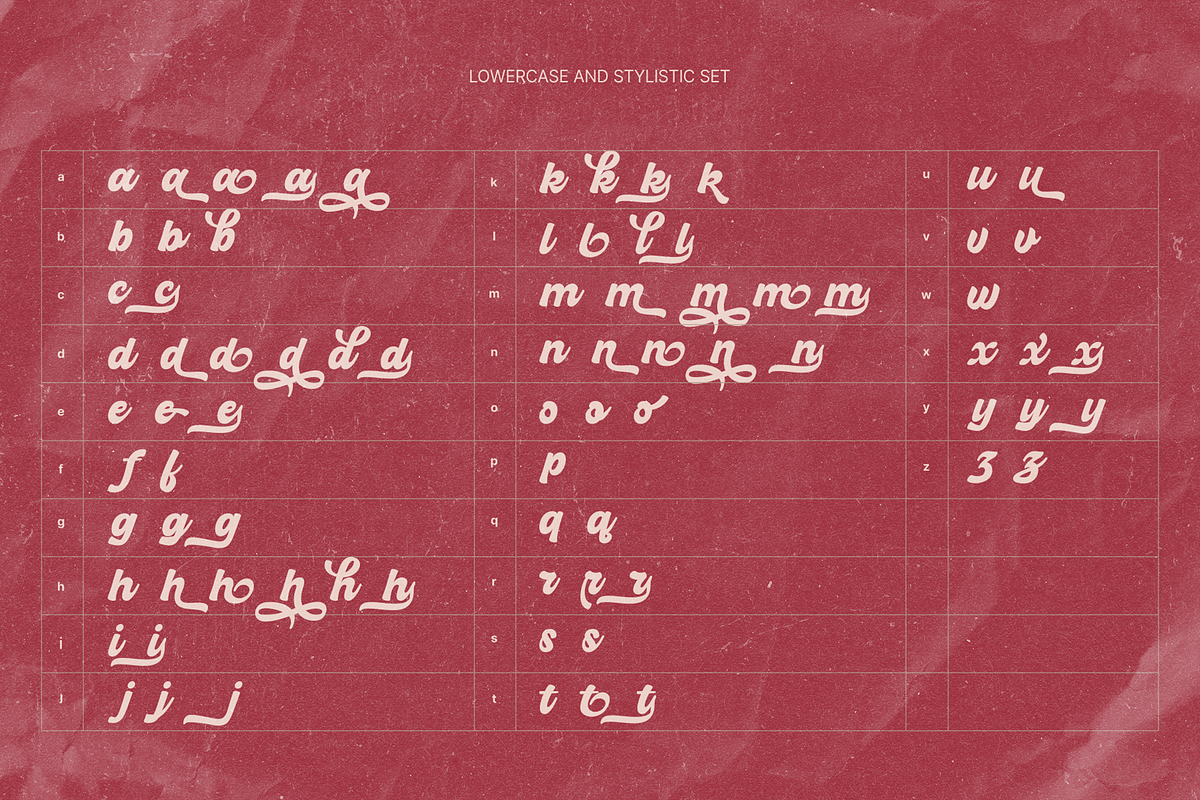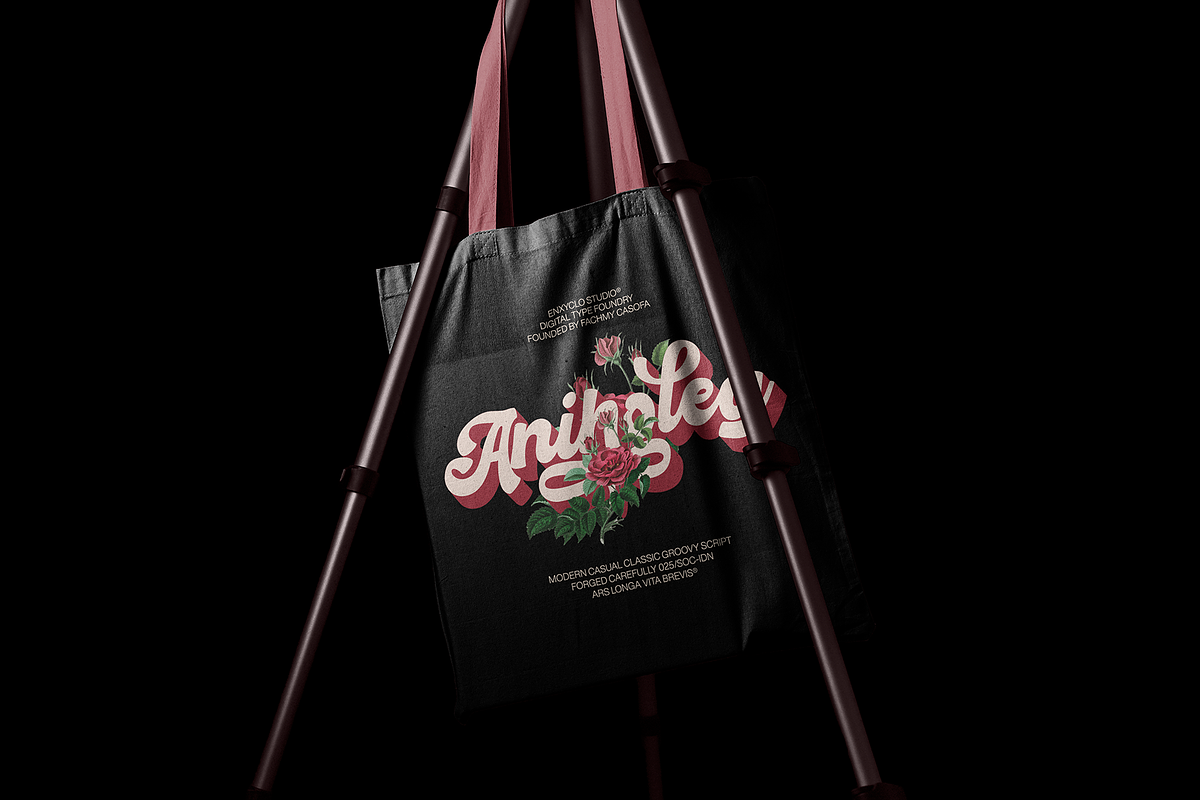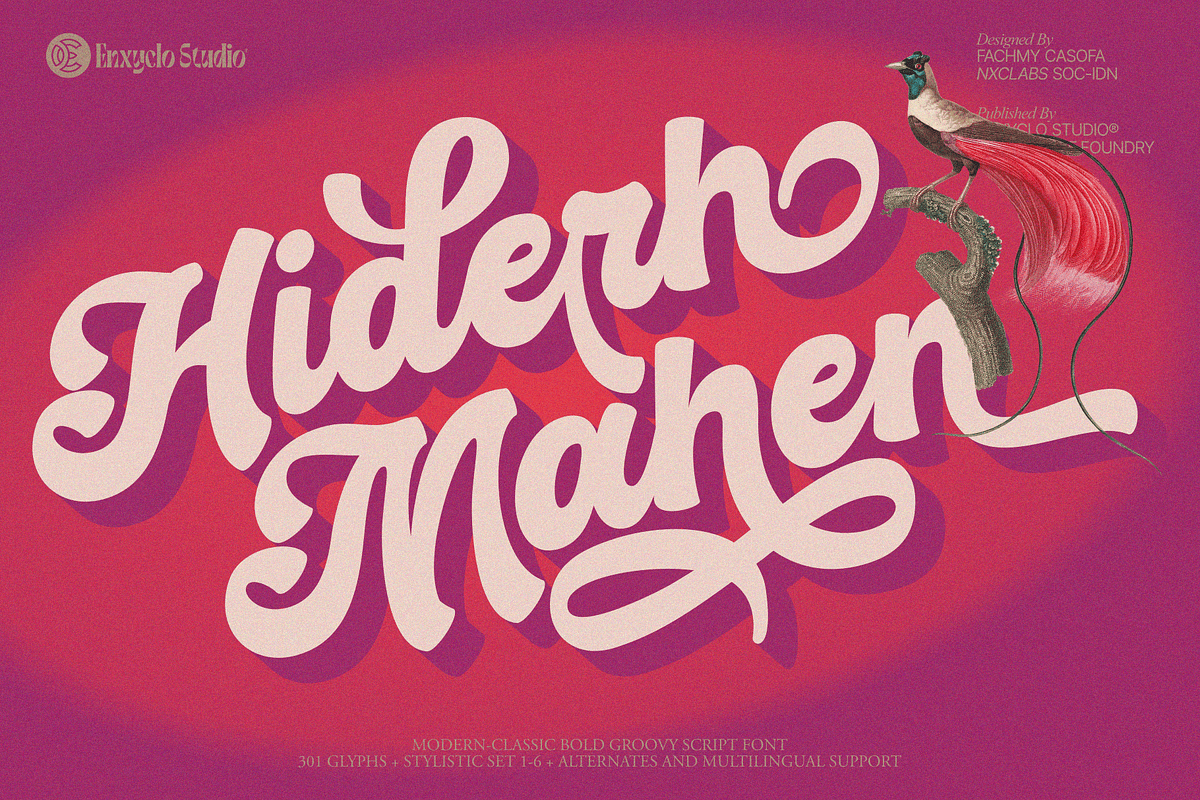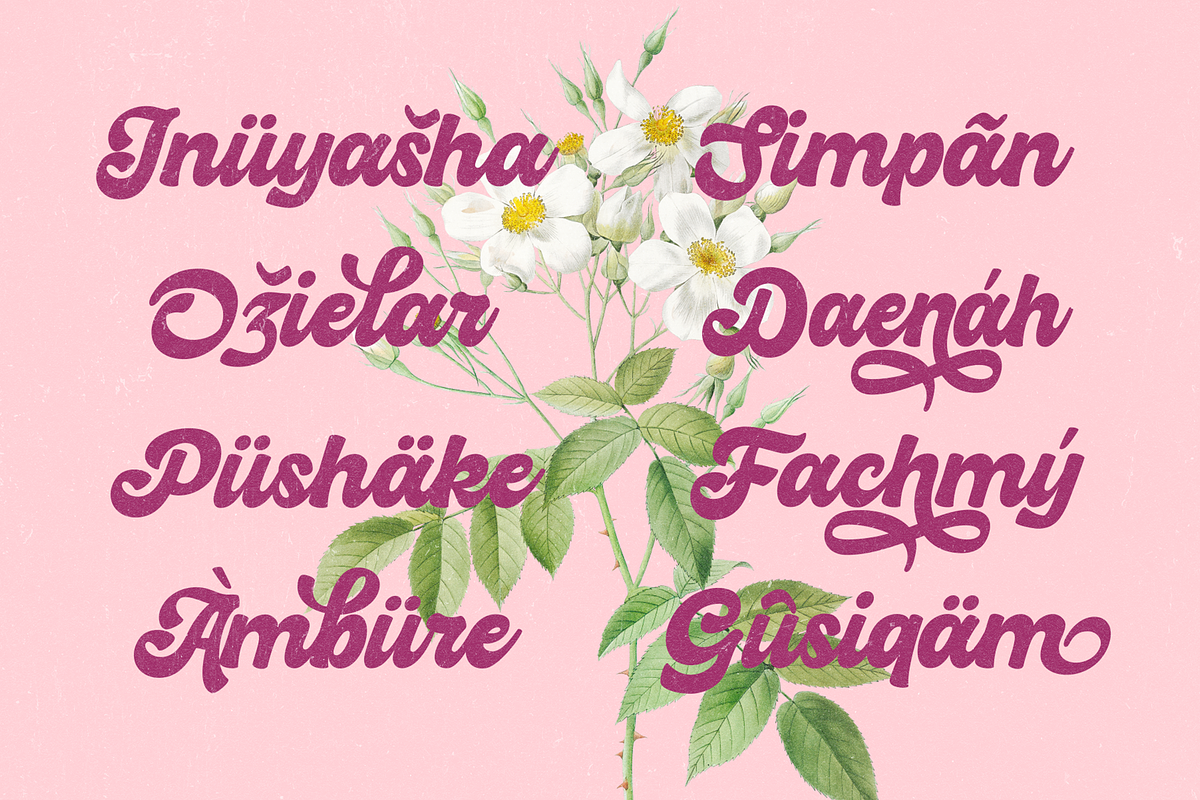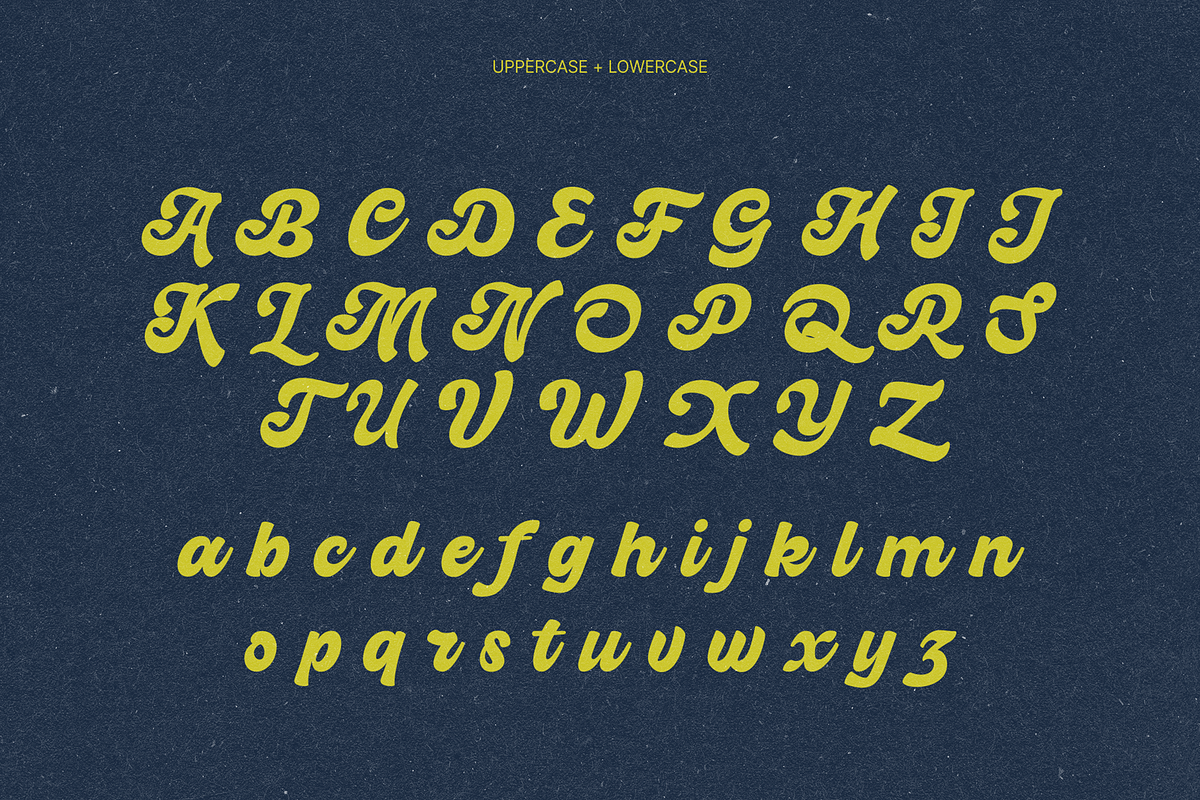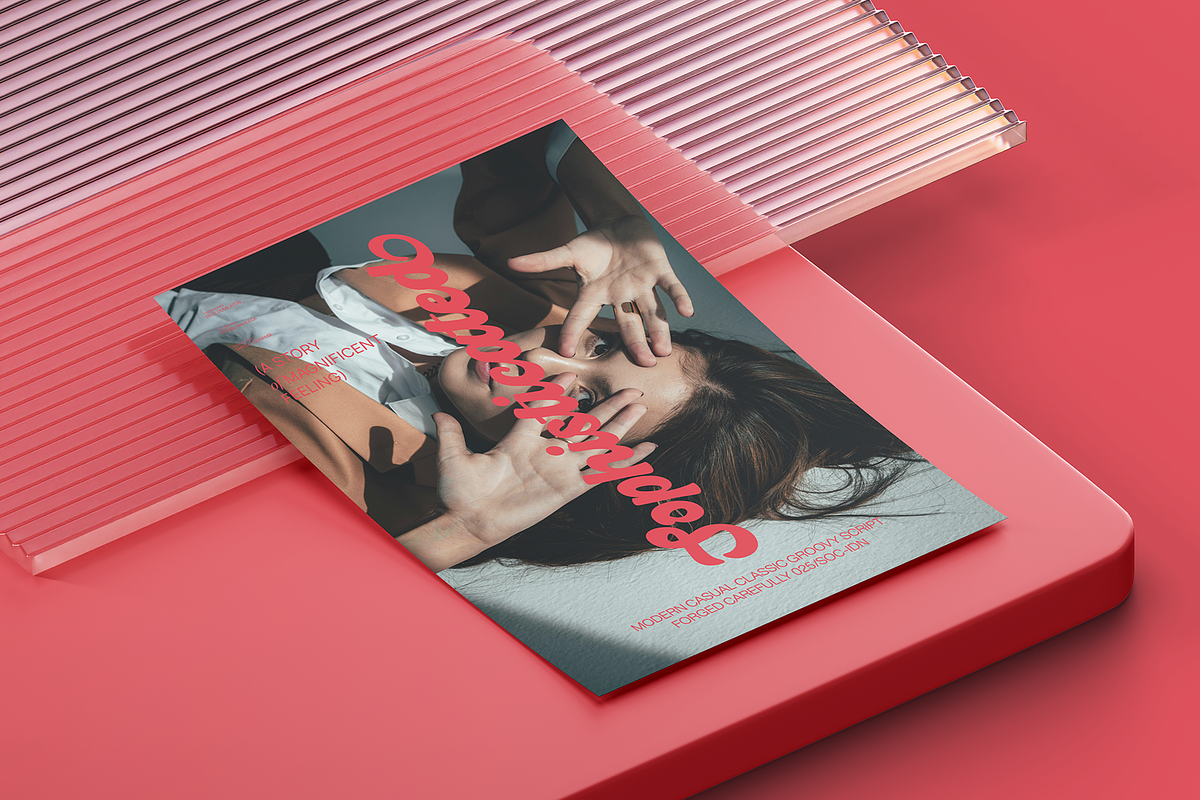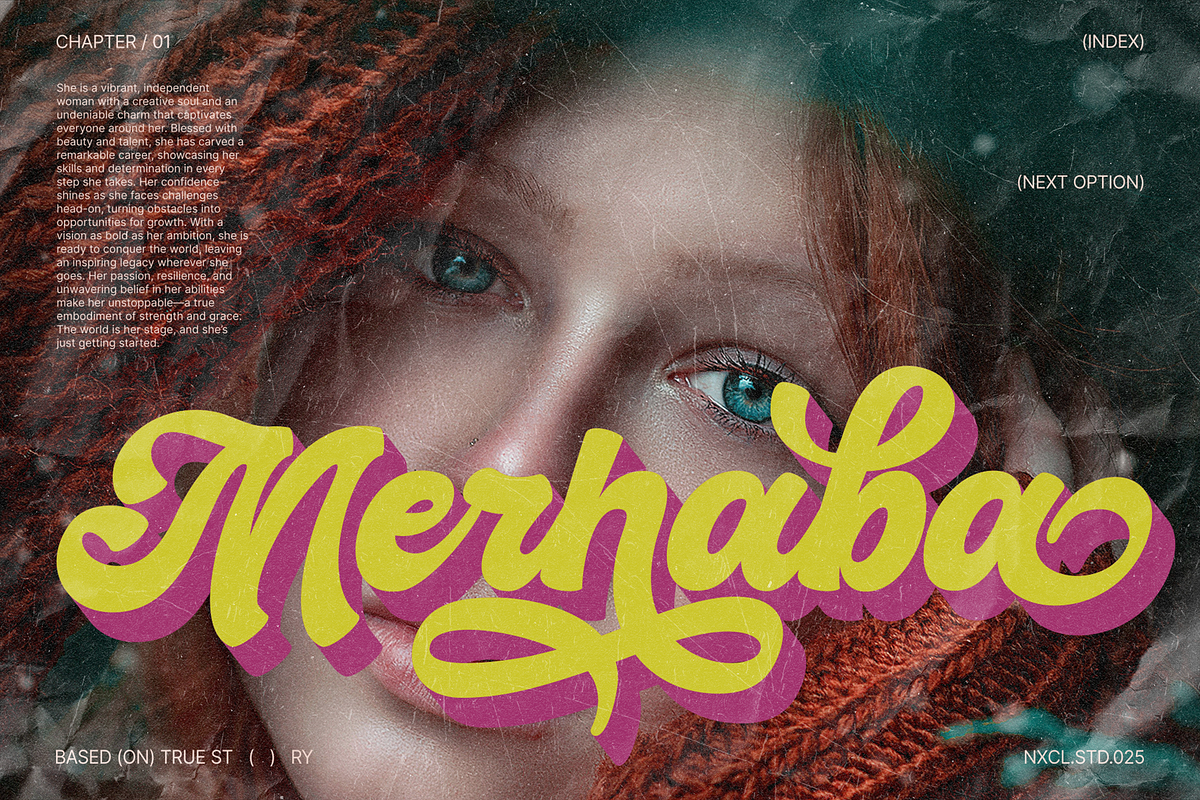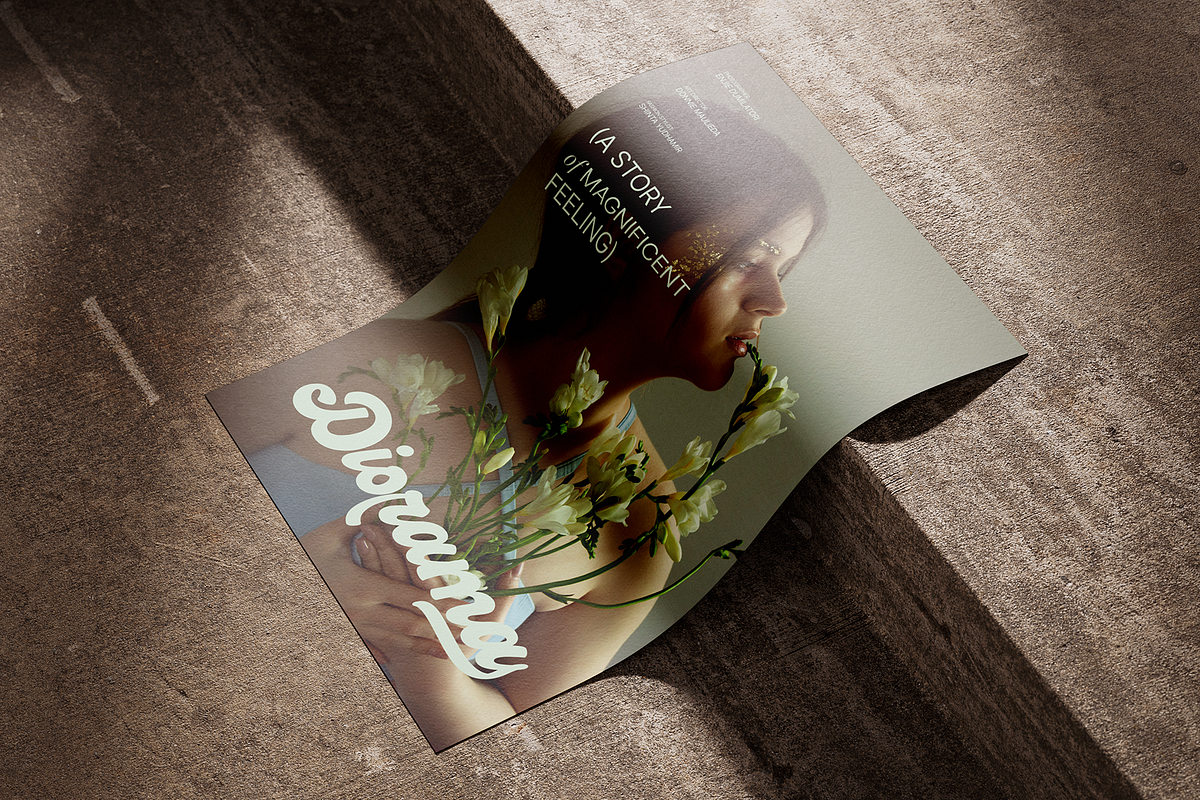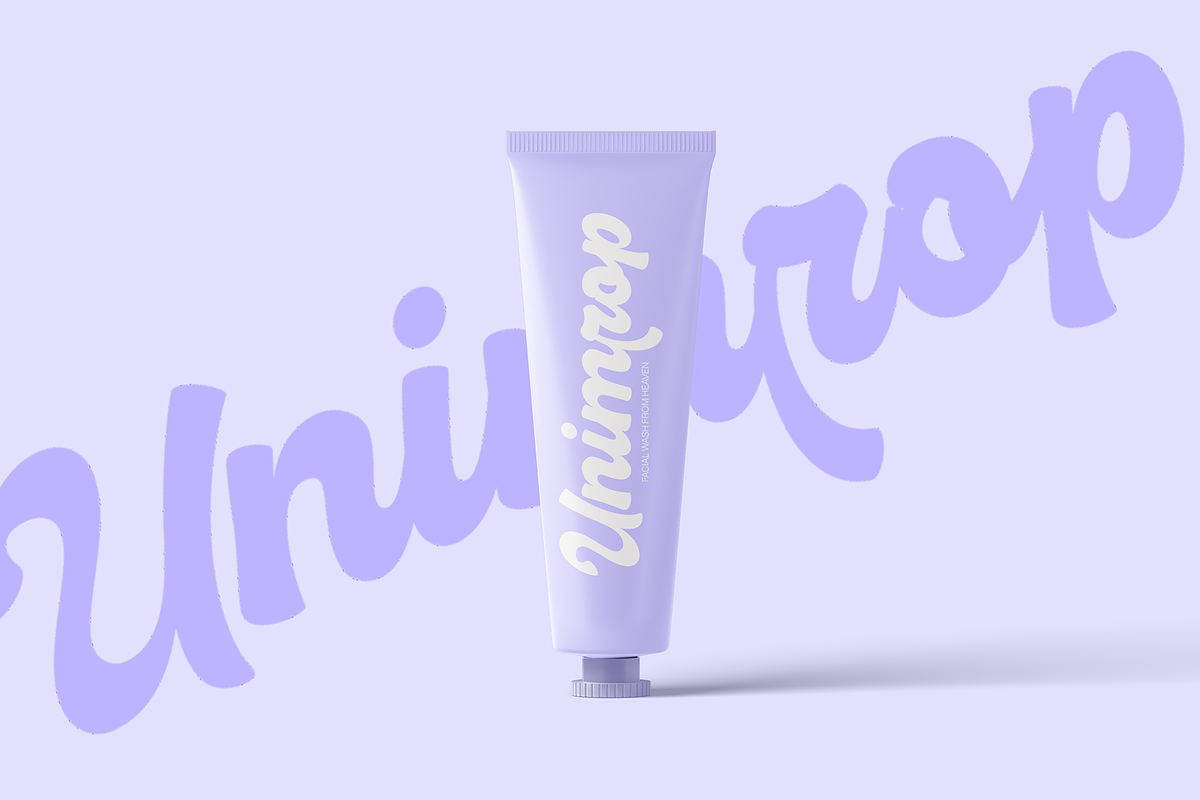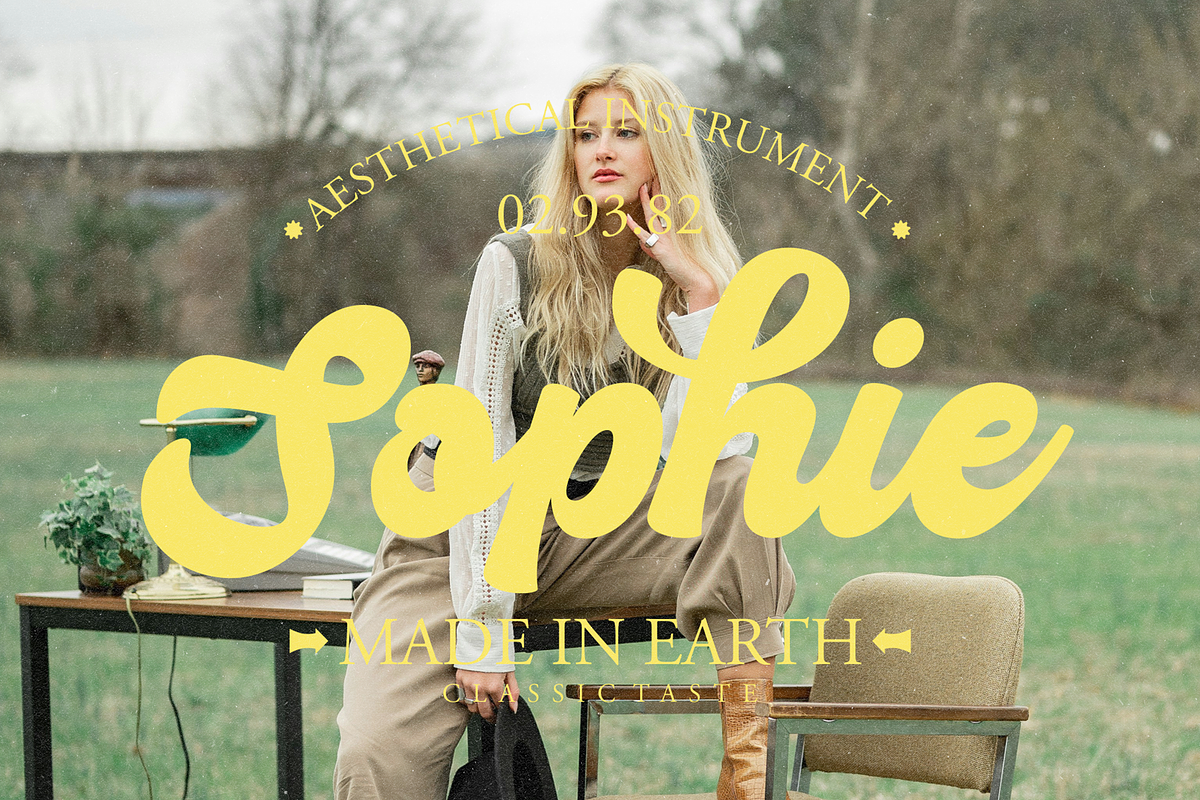
Hiderh Mahen — Bold Groovy Script
HIDERH MAHEN is a timeless script font that beautifully blends modern elegance, classic charm, and groovy retro spirit into one distinctive design. With flowing curves, bold movement, and a naturally casual script rhythm, this typeface creates a unique balance between nostalgic character and contemporary style. The result is a font that feels warm, stylish, and full of personality. Inspired by vintage aesthetics yet crafted for modern visual storytelling, HIDERH MAHEN delivers a rich and luxurious presence with a playful retro soul. Its expressive script forms bring a touch of glamour and sophistication while maintaining a relaxed and approachable character. Whether used for a logo, fashion branding, or premium visual identity, the font creates a bold statement with elegant energy.
Designed for creators who love beauty and artistic expression, HIDERH MAHEN adds an aesthetic touch to fashion labels, boutique branding, beauty products, cosmetic packaging, and skincare visuals. The combination of classic retro influence and modern refinement creates a look that feels both familiar and fresh—perfect for brands seeking a stylish identity that stands apart. More than just a script font, HIDERH MAHEN is a visual experience where luxury meets retro nostalgia, allowing your designs to communicate creativity, glamour, and timeless personality with effortless style.
FEATURE
301 Unique Glyphs
Stylistic Set 1-6
Alternates & Ligature
Numeral, Punctuation & Symbols
PERFECT FOR
Luxury Logo & Branding
Fashion & Boutique Identity
Beauty, Cosmetic & Skincare Packaging
Premium Product Labels
Glamour Advertising Campaigns
Elegant Editorial & Magazine Design
Signature Logos & Personal Branding
Wedding Invitations & Luxury Stationery
Social Media Branding
High-End Visual Identity Design